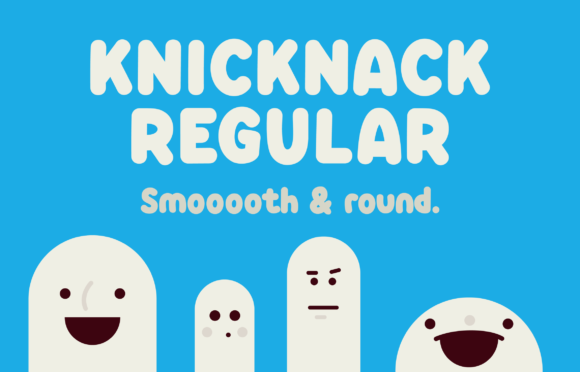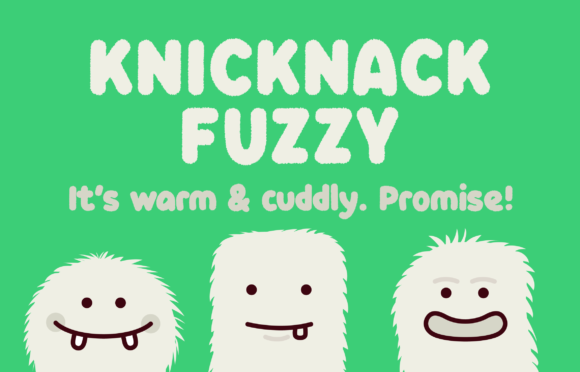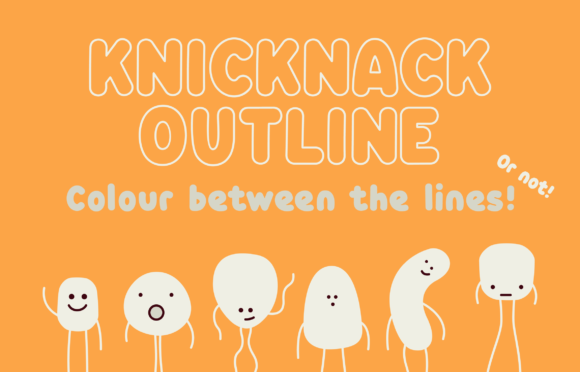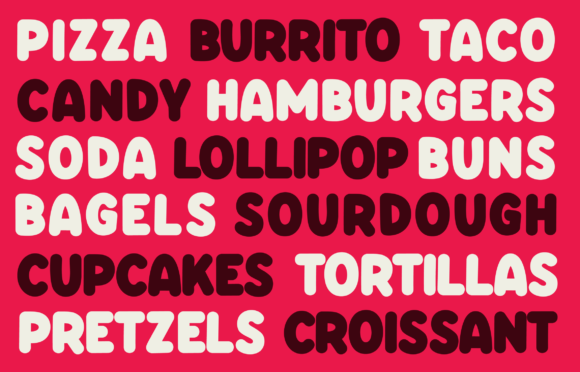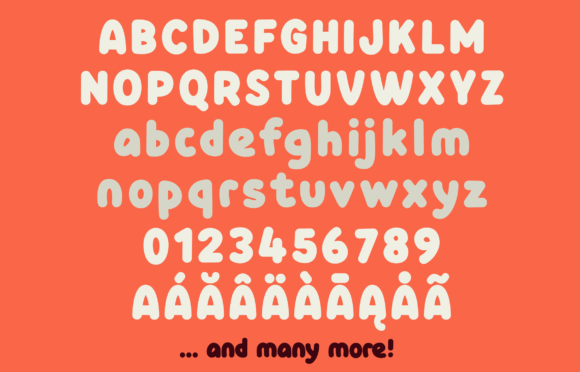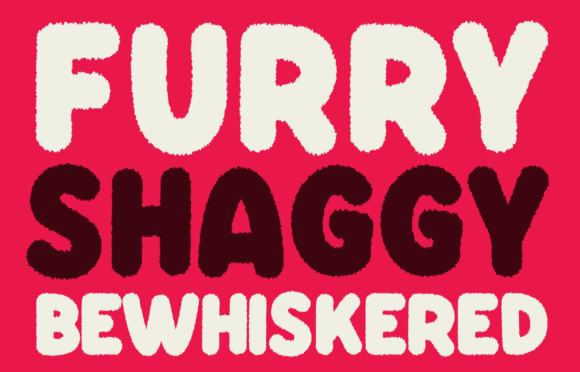
Introduction to Knicknack Font Font
Fonts play a crucial role in design, and the Knicknack Font font is a typeface that brings both character and versatility to any project. Whether you’re working on a branding project, a website, or a print design, the Knicknack Font font offers a unique style that can elevate your work.
Knicknack is guaranteed to put a smile on your face.
This warm, smooth and rounded font is perfect for giving your designs a loveable and cutesy appeal This font comes in three distinct styles and is ideal for use in branded content or package design.
The Knicknack Font font is more than just a typeface – it’s a design tool that helps you communicate your message with style and clarity. Its unique character set and versatile design make it suitable for a wide range of applications, from elegant invitations to bold headlines.
With its carefully crafted letterforms and balanced proportions, the Knicknack Font font ensures readability and visual appeal across all mediums.
What makes Knicknack Font font special?
The Knicknack Font font stands out with its unique design, exceptional readability, and versatility across various design applications.